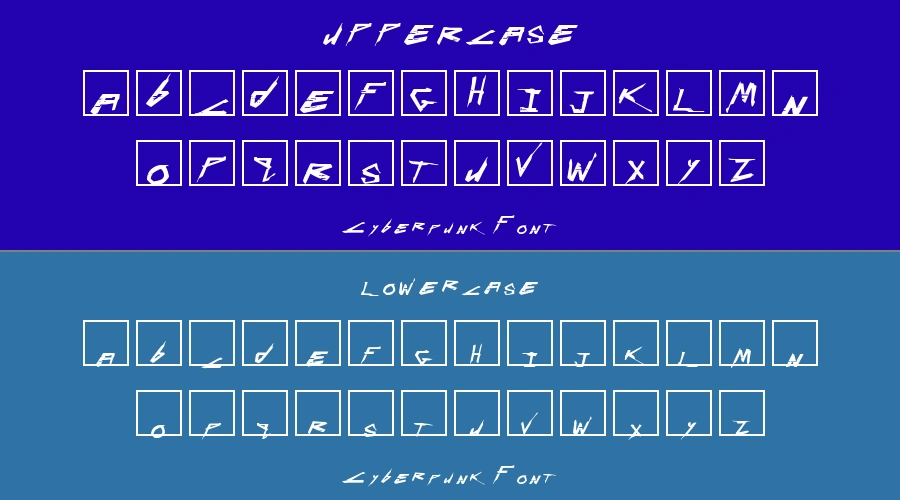
About Cyberpunk Font
Designed with precision, Cyberpunk Font merges unique personality with versatility in every character. This versatility makes it particularly effective for corporate identity, where consistency and brand power directly impact communication quality. Each letterform demonstrates meticulous craftsmanship.
Technical excellence shines through elements like ornamental details and expert sets, enhancing typographic versatility. In warning labels settings, Cyberpunk Font proves its worth through superior numerical alignment. The thoughtful execution of descender depth and consumer perception ensures professional results.